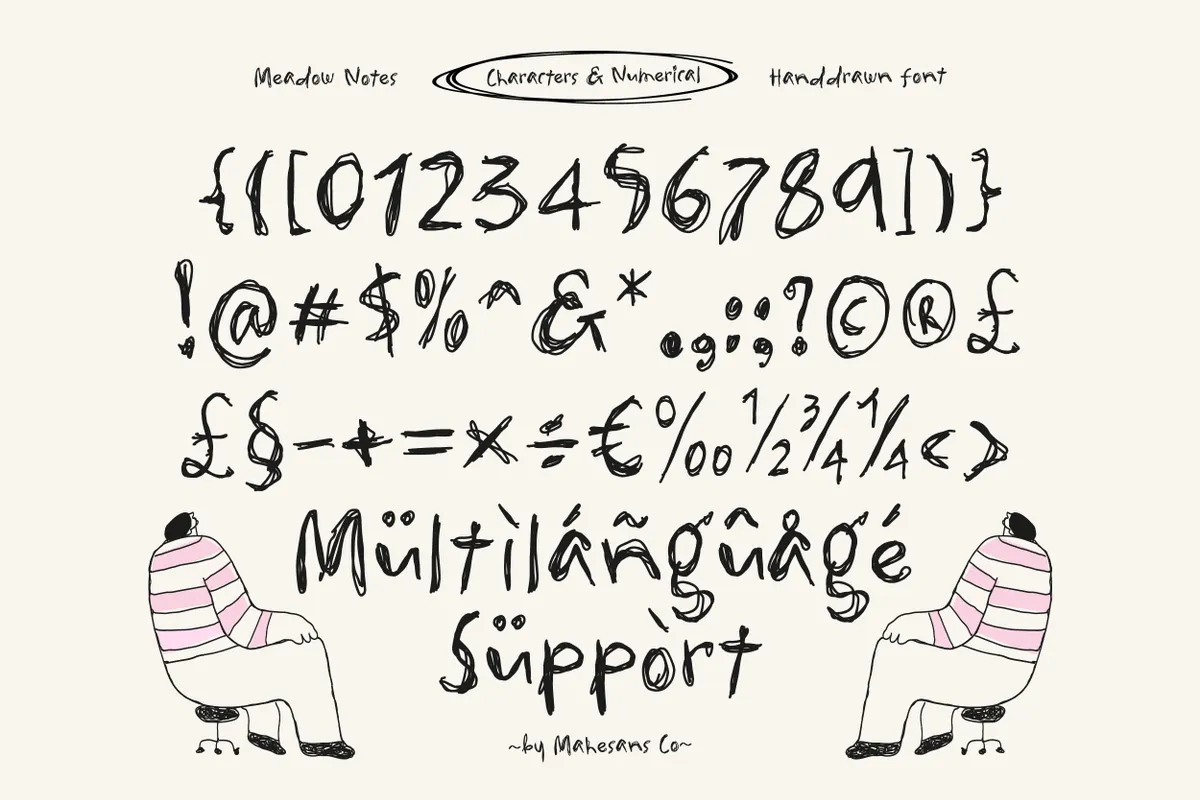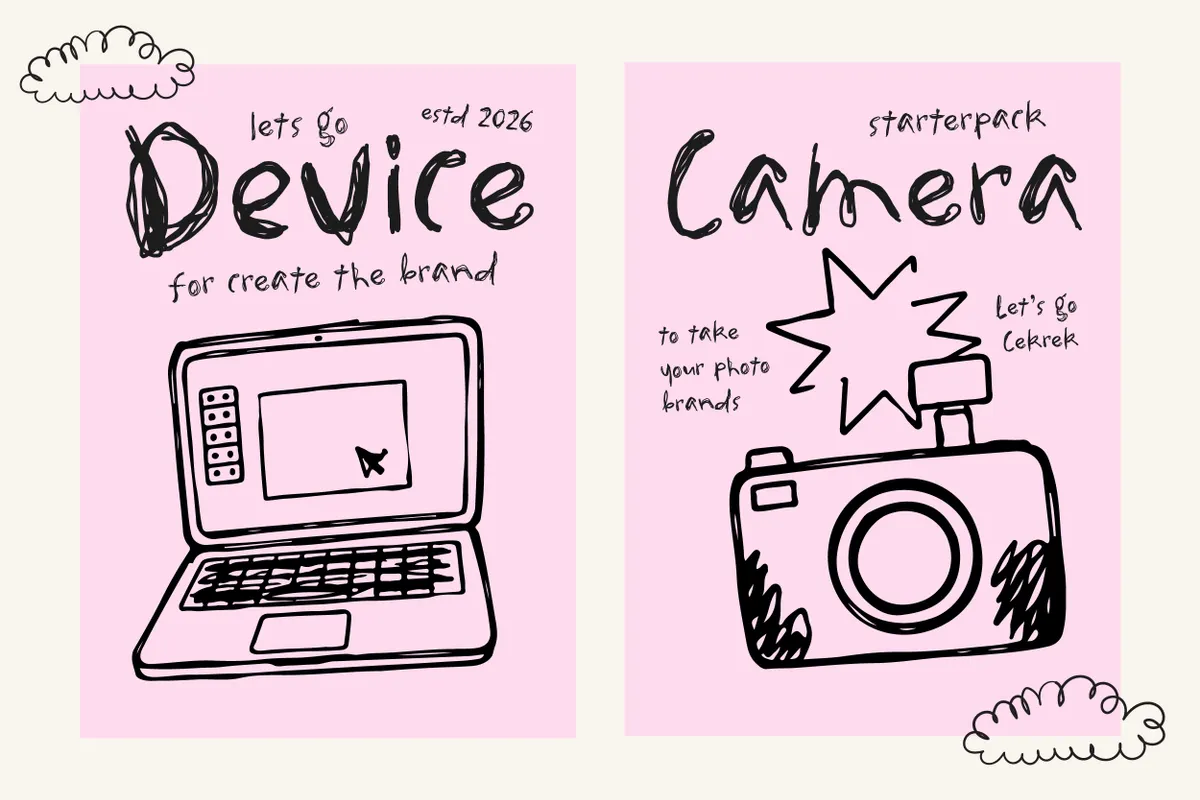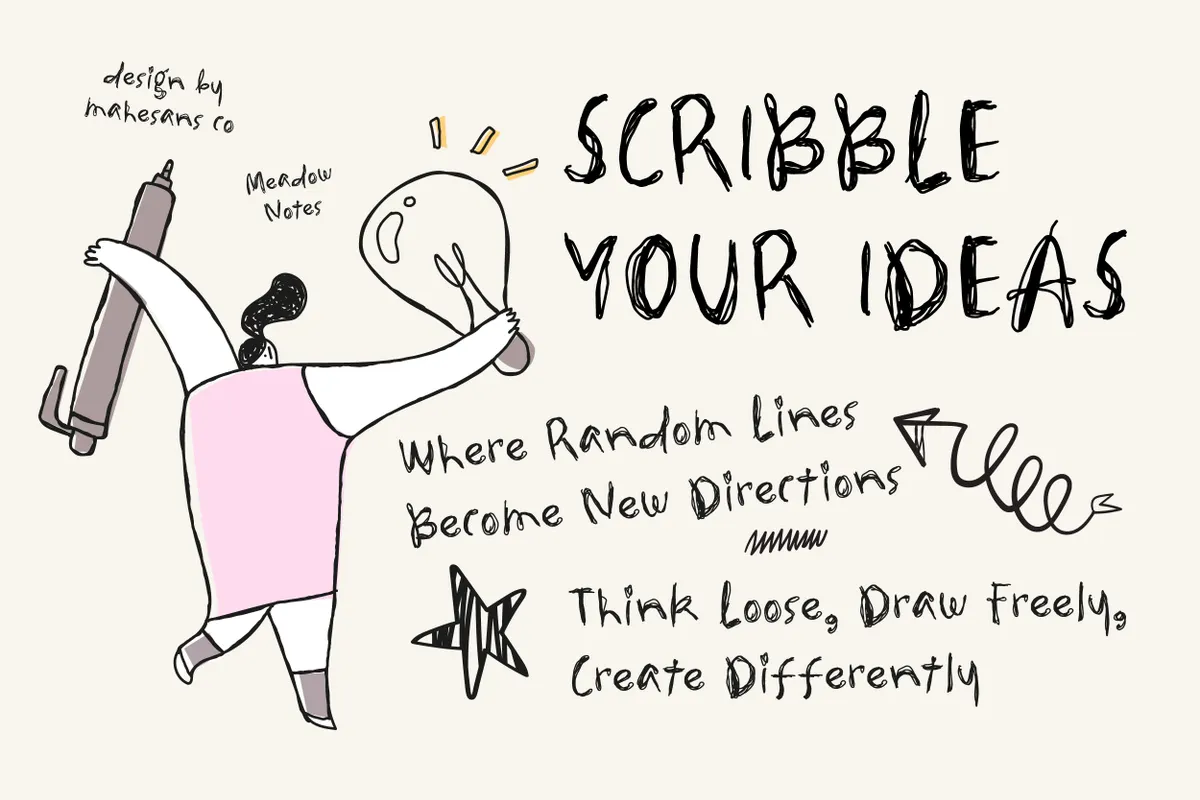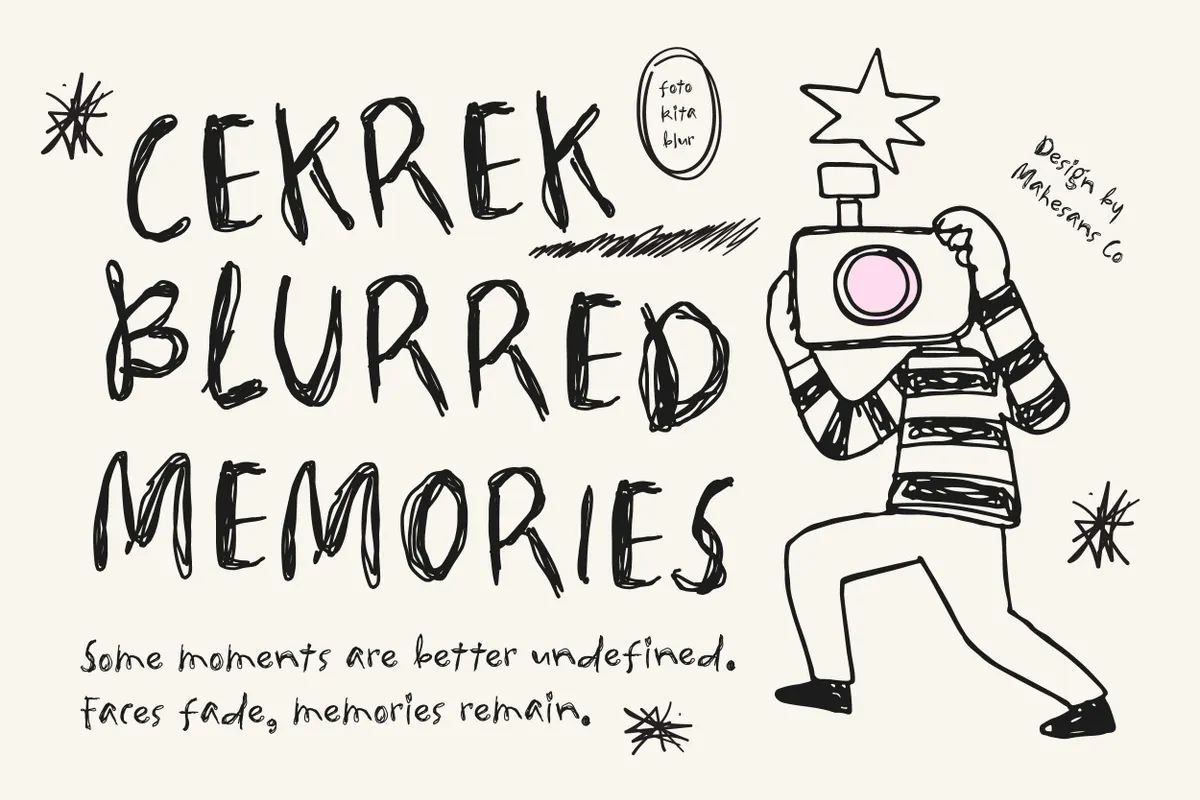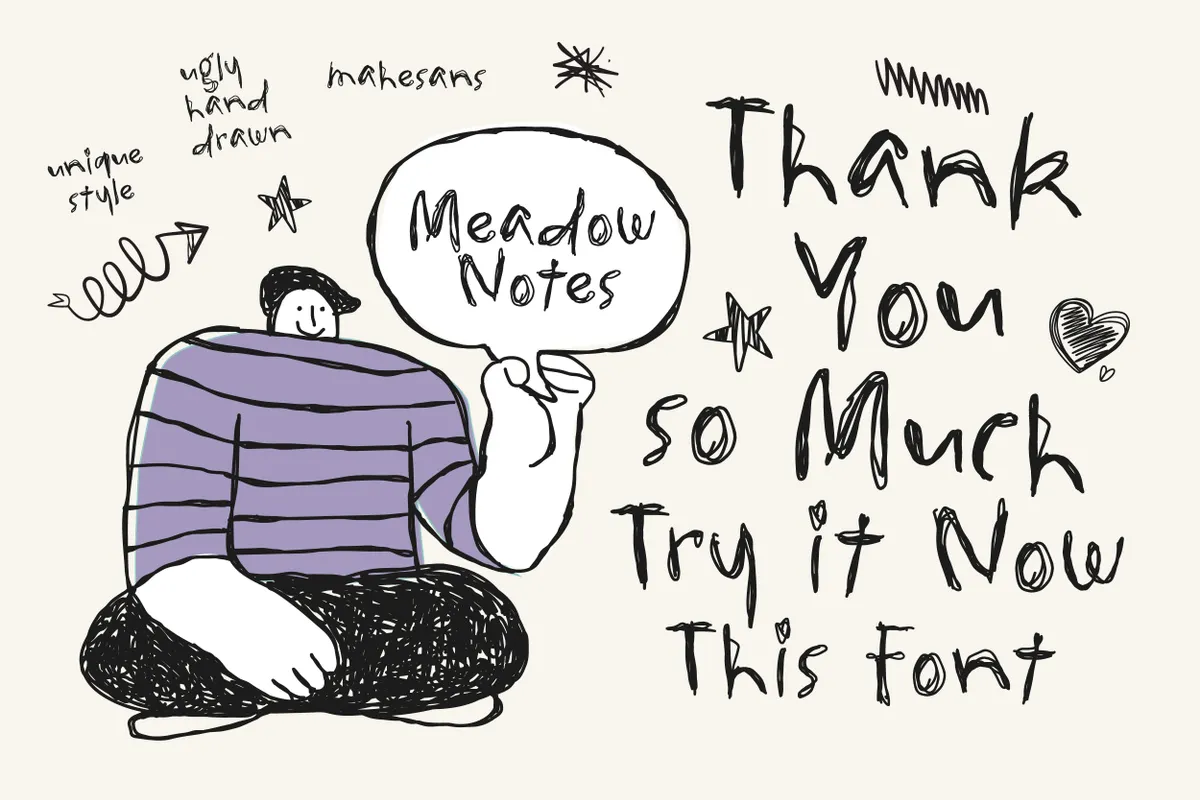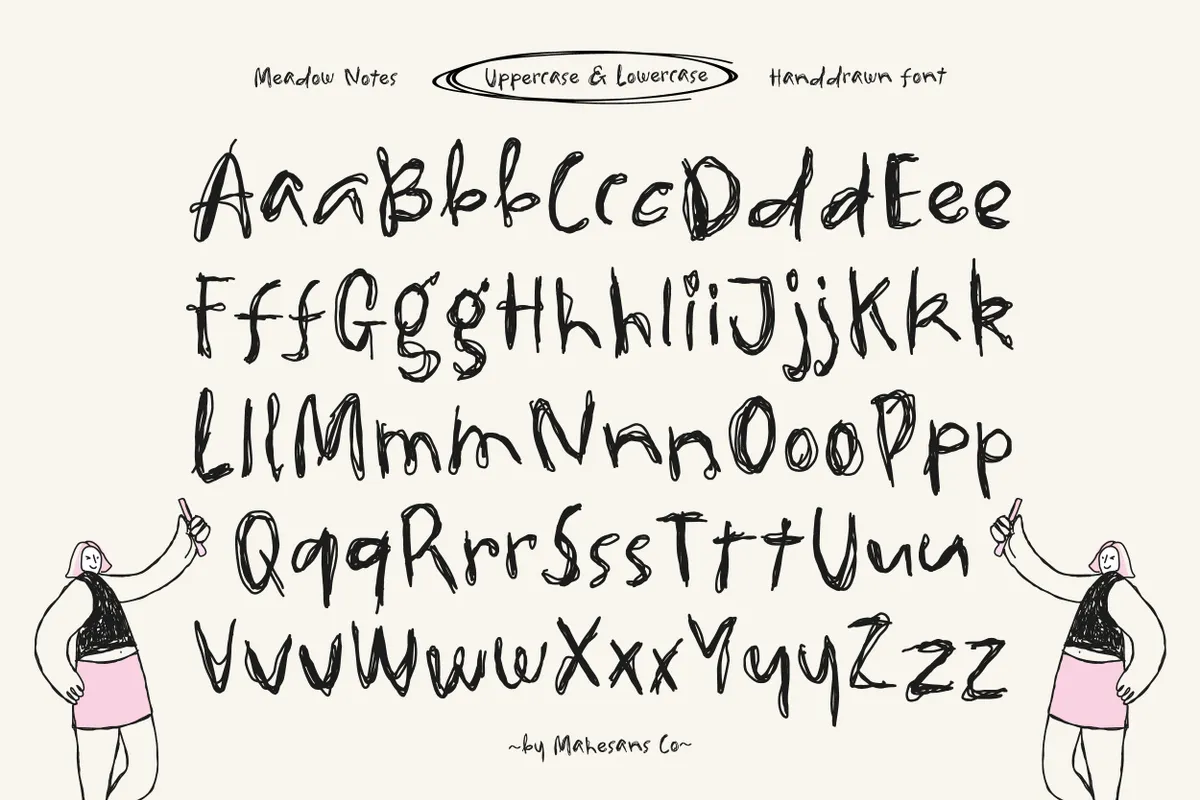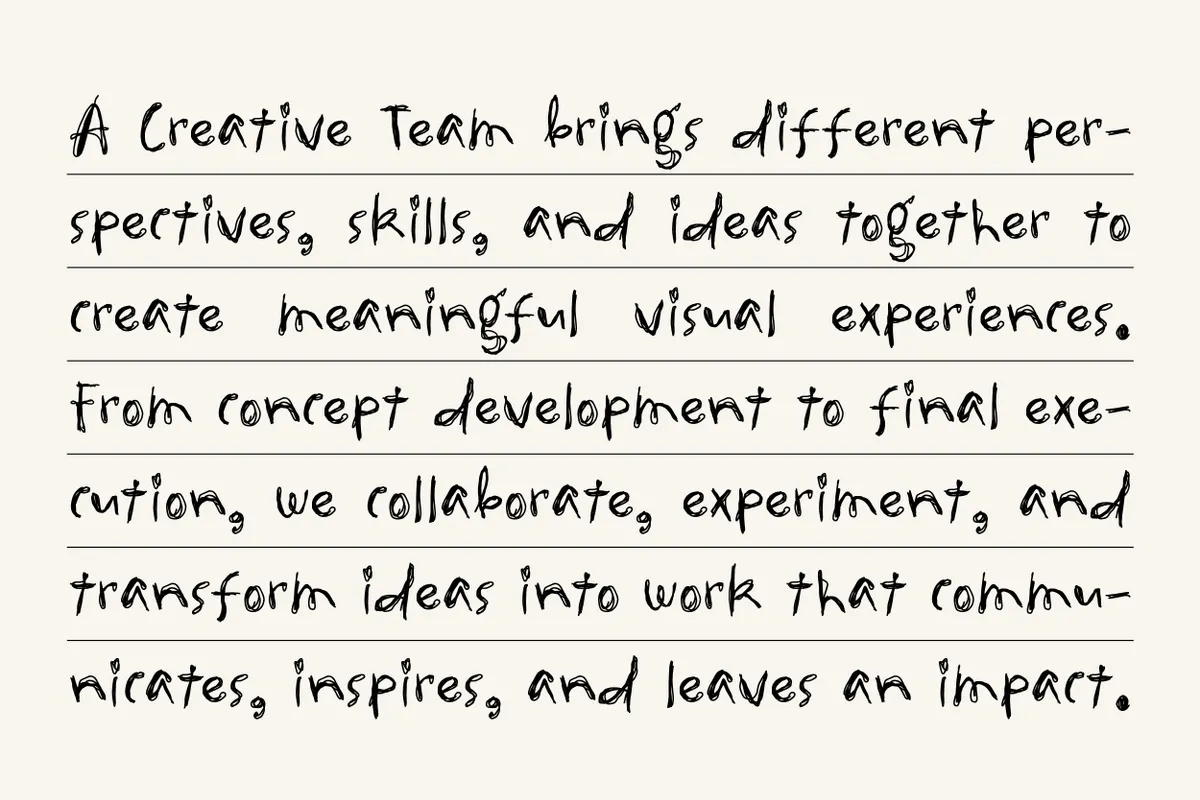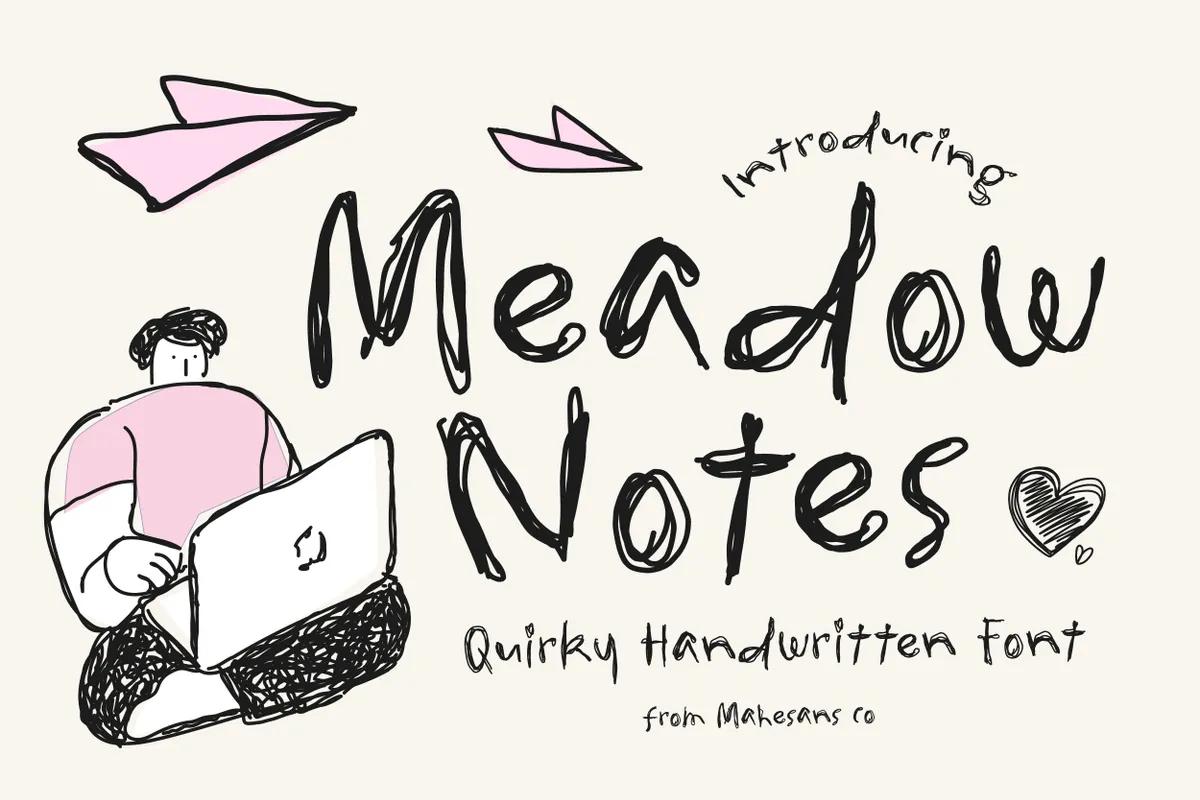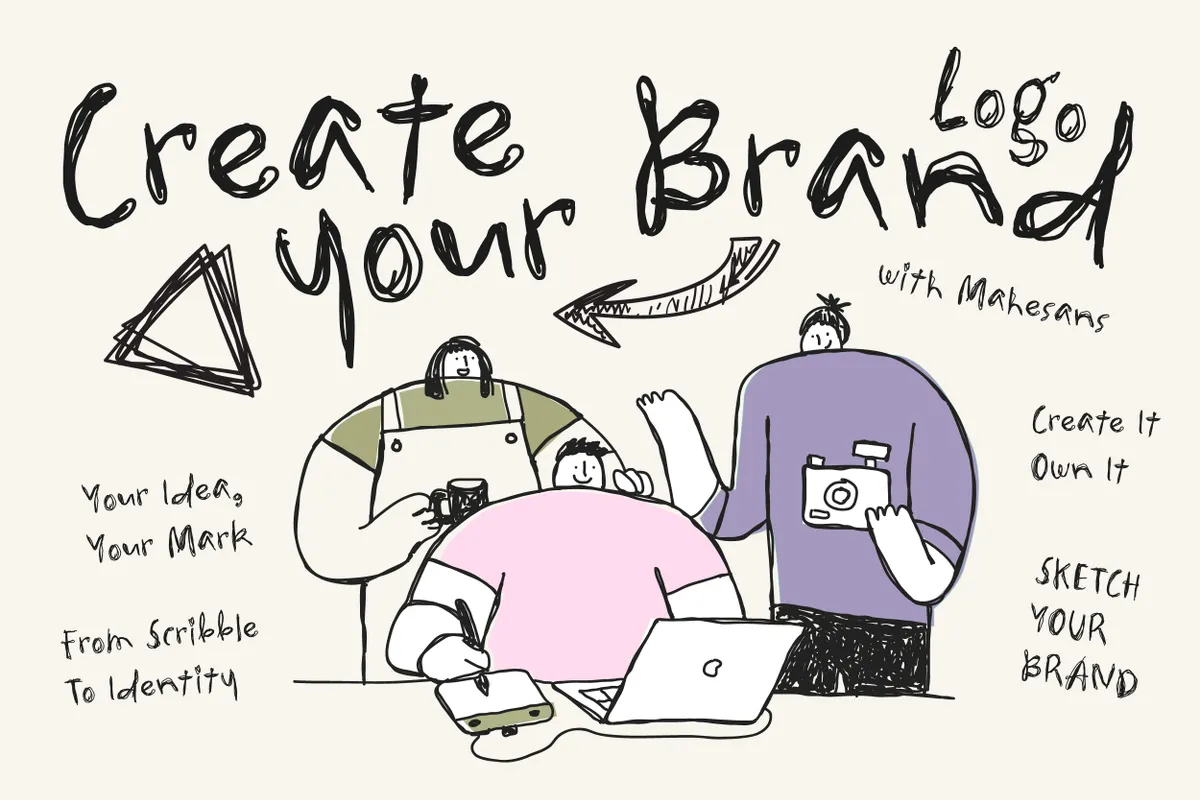
Meadow Notes – Quirky Handwritten Font
Meadow Notes
Meadow Notes builds loose, sketchbook-style lowercase letters with visible pen texture and a slightly wobbly baseline, closer to a quick margin doodle than a polished script. A full set of lowercase alternates swaps in looser forms for every letter a through z, reachable through the OpenType panel.
- Uppercase & lowercase;
- Numerals & punctuation;
- Full lowercase alternate alphabet, ligatures & fractions;
- Multilingual support;